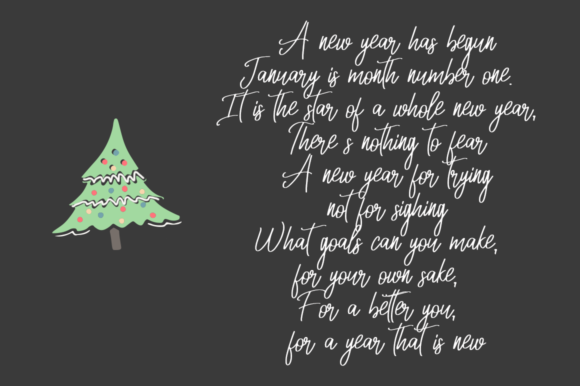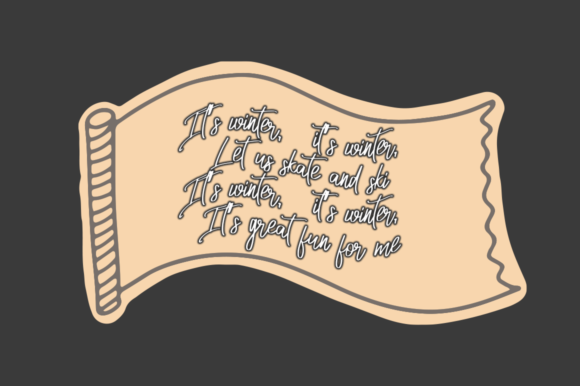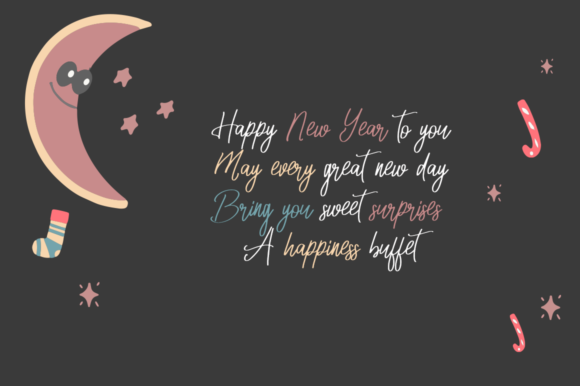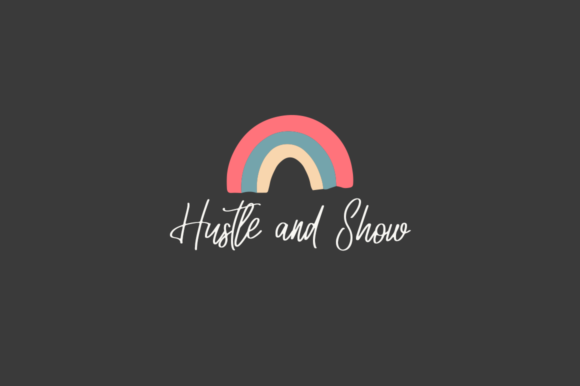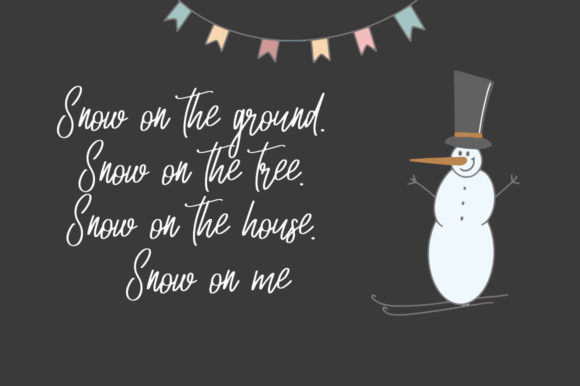
Hustle and Show Font
About Hustle and Show Font
Hustle and Show is a modern script font that you can use for kids’ clothing, magazines, Christmas cards, invitations, book titles, and more.